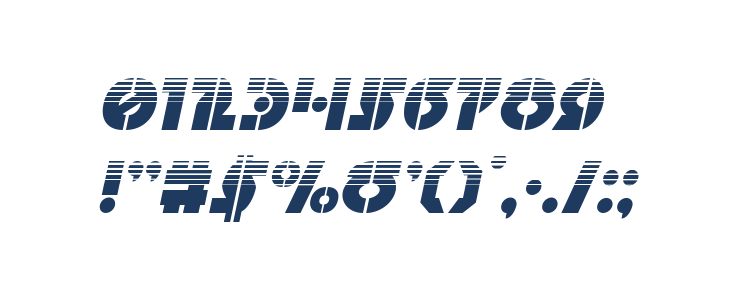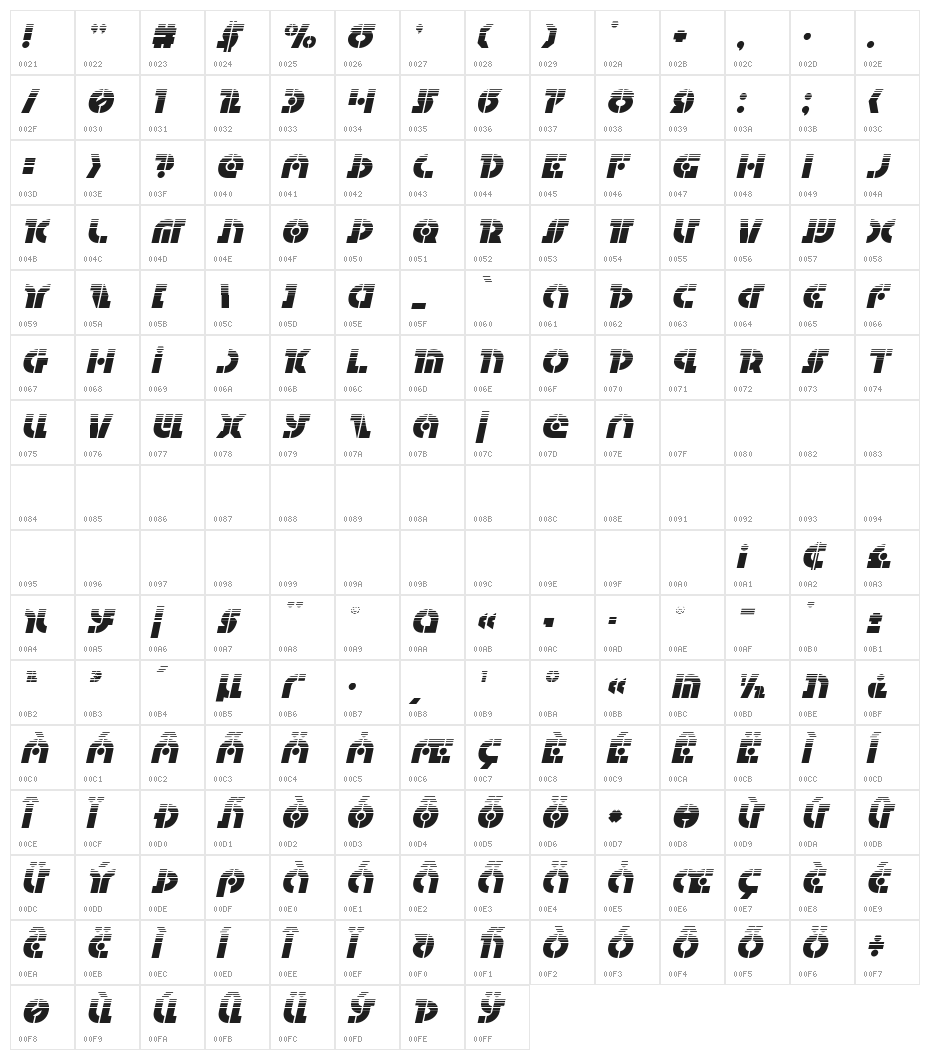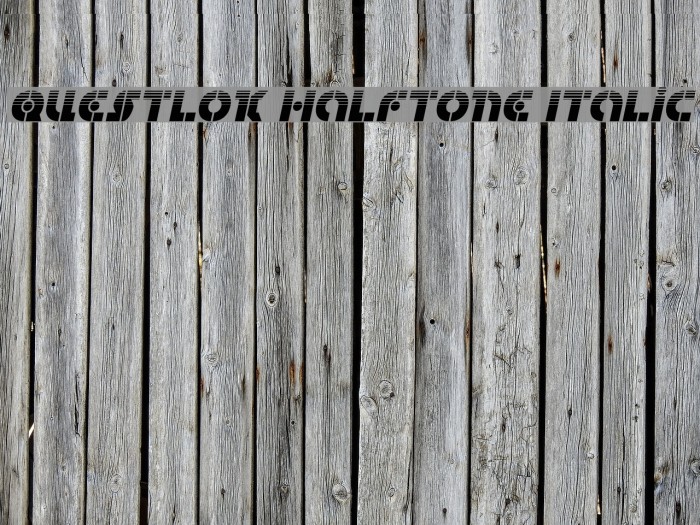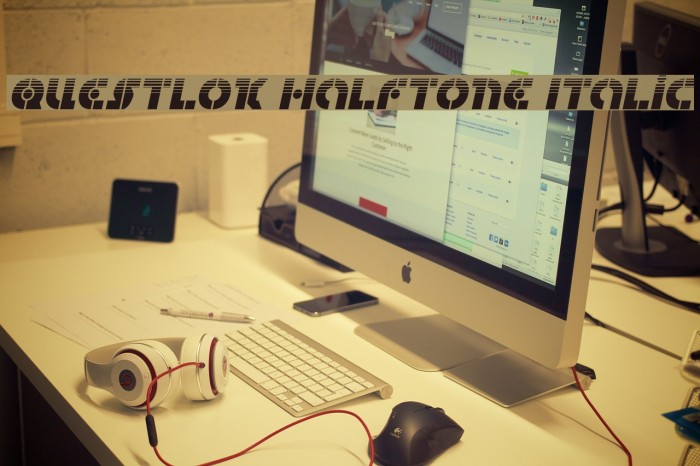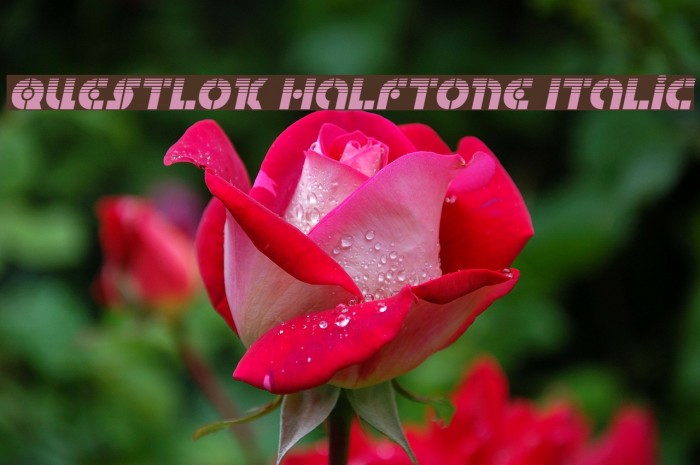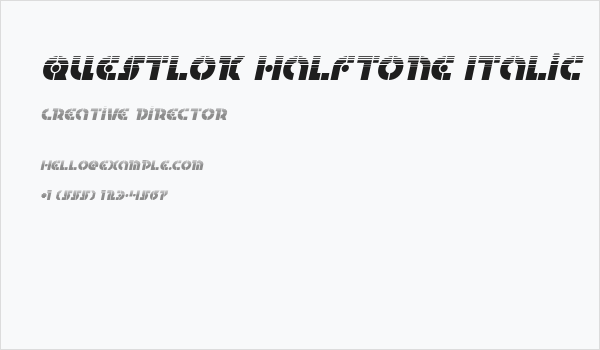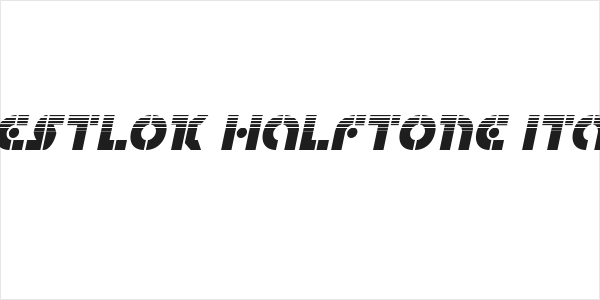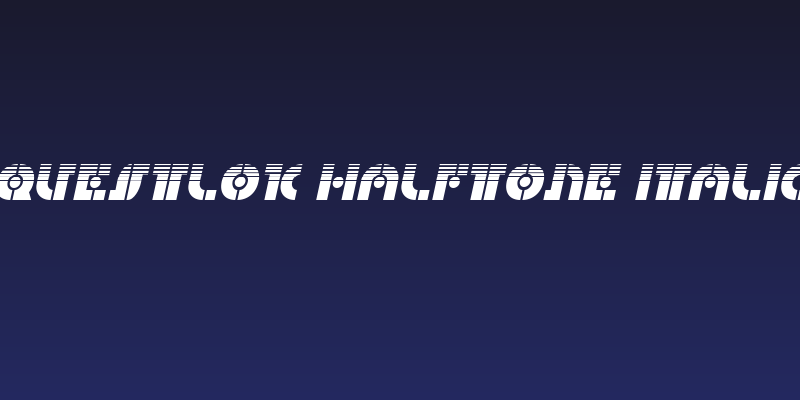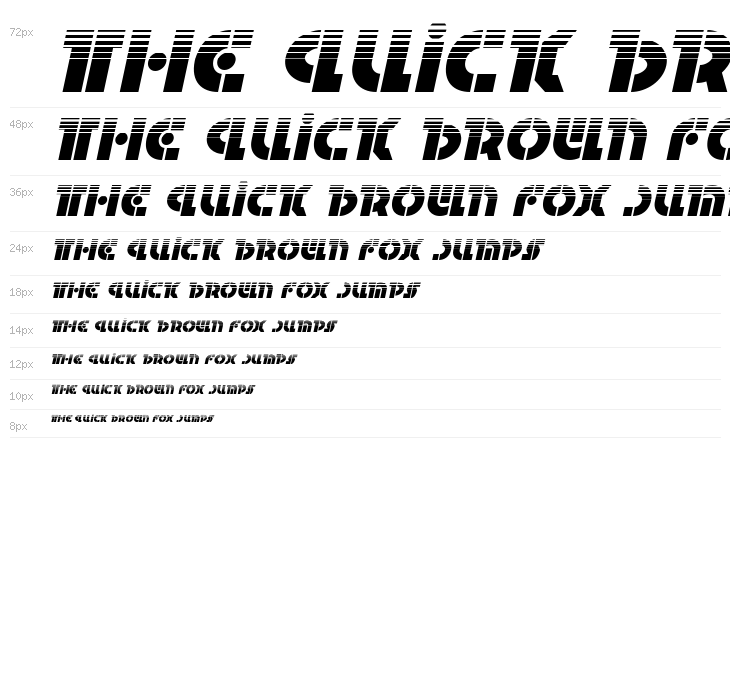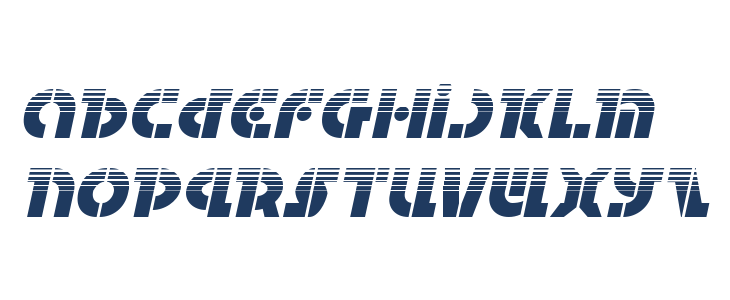
Questlok Halftone Italic Font
Questlok Halftone Italic Description
This font features a bold and dynamic design with a halftone effect that gives it a unique, textured appearance. The characters are italicized, adding a sense of motion and energy. The uppercase and lowercase letters maintain a consistent style, with thick strokes and a distinctive striped pattern that creates a sense of depth. The numerals and special characters are equally bold, ensuring a cohesive look across all elements. This font is eye-catching and ideal for projects that require a modern and edgy aesthetic.
| Proposed Projects | Ideal for posters, album covers, branding, and any design requiring a bold, modern look. |